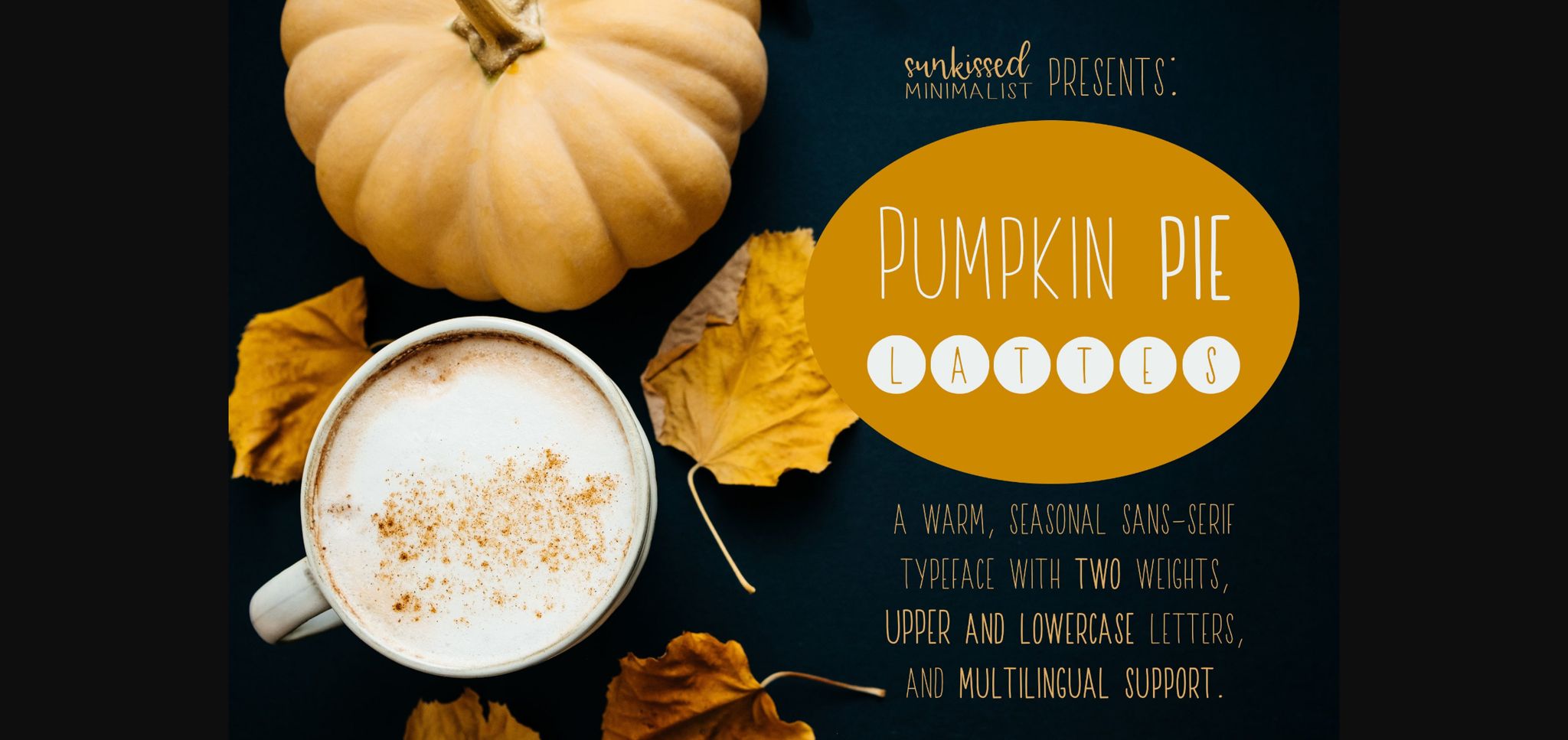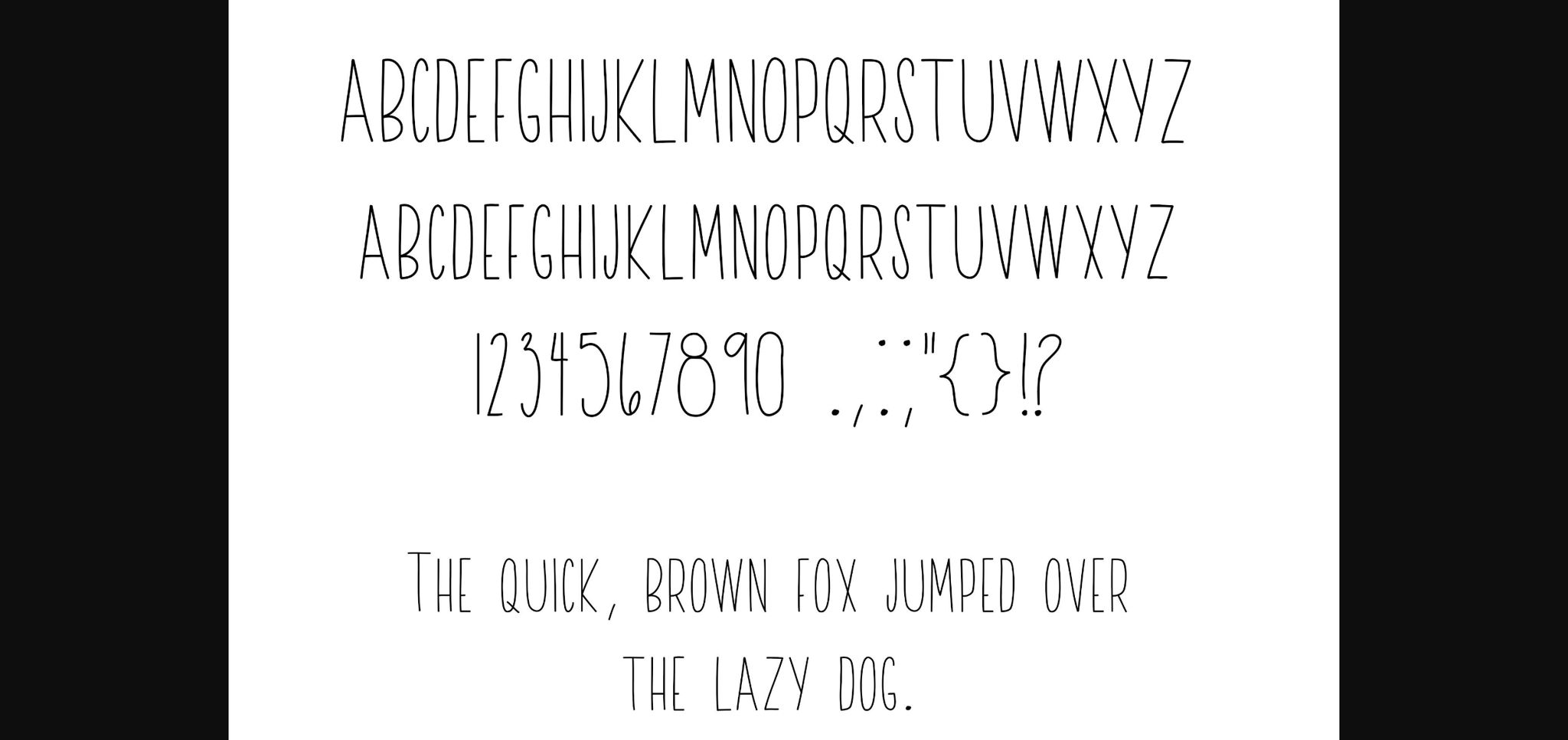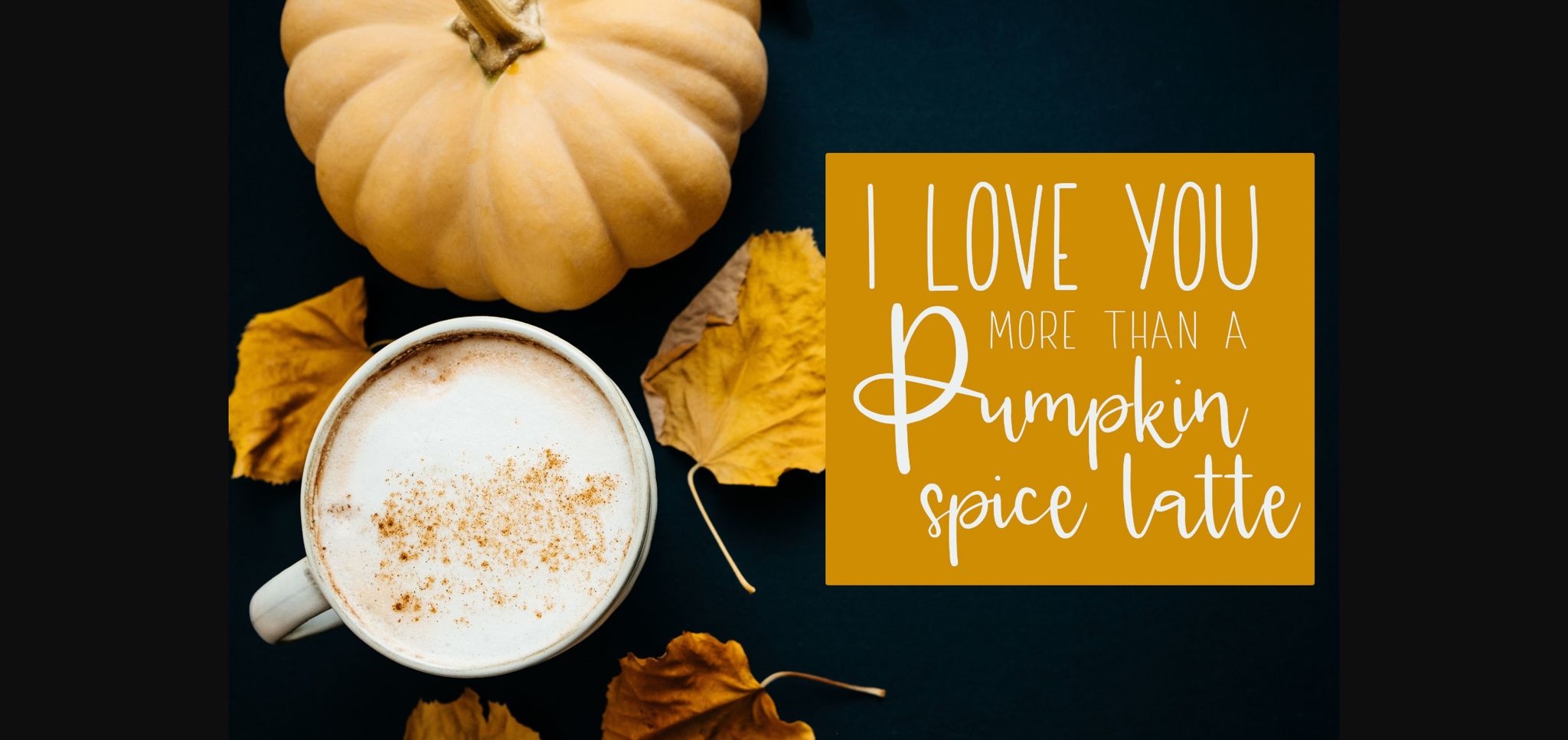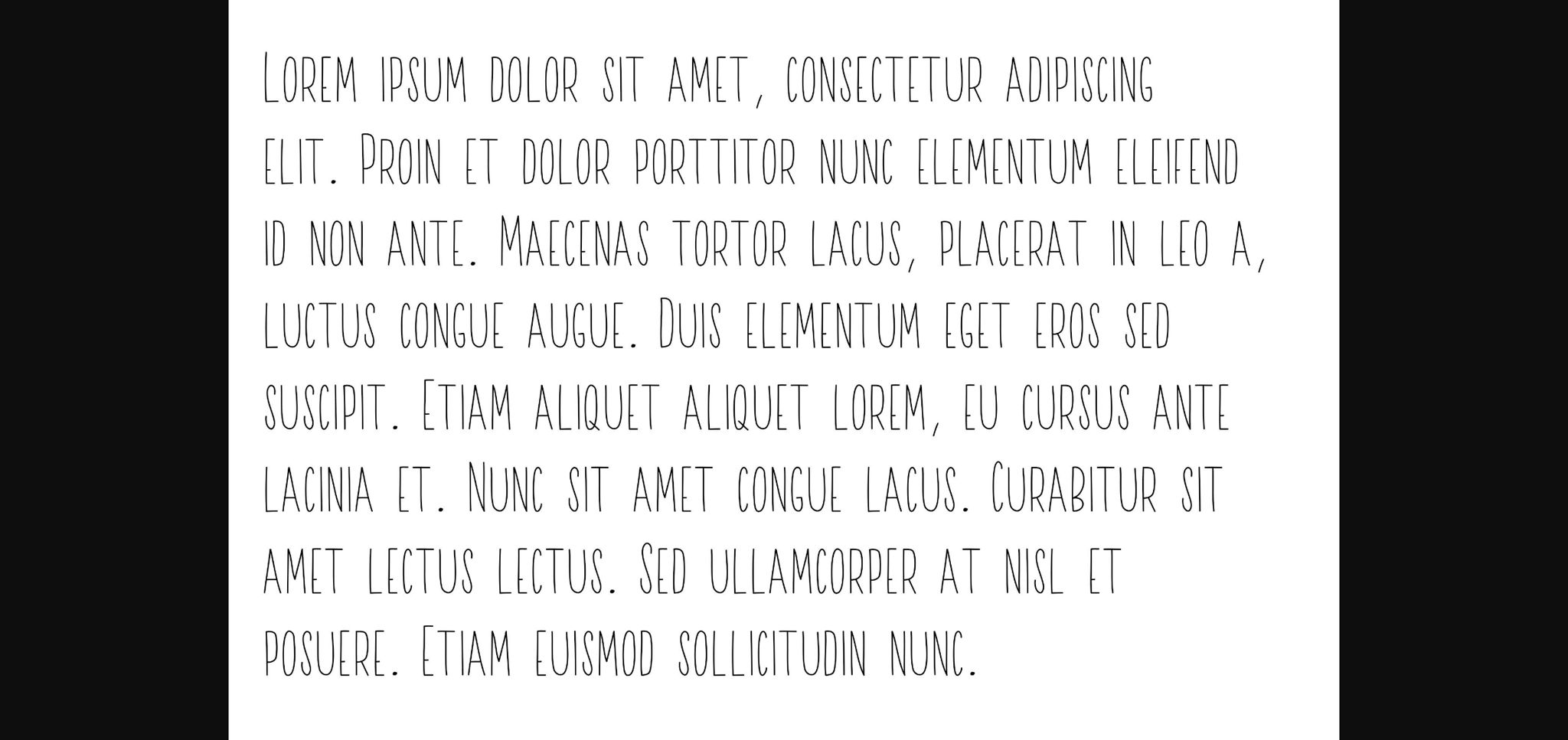
HomeSans Serif FontsPumpkin Pie Lattes Font Sans Serif Fonts Pumpkin Pie Lattes Font FacebookXPinterestWhatsApp 1 of 6 ... Pumpkin Pie Lattes Font Poster 2... Pumpkin Pie Lattes Font Poster 3... Pumpkin Pie Lattes Font Poster 4... Pumpkin Pie Lattes Font Poster 5... Pumpkin Pie Lattes Font Poster 6... About Pumpkin Pie Lattes Font Pumpkin Pie Lattes is a warm sans-serif font perfect for all your favorite projects. Its cozy and lovely vibe will add a unique accent to your crafty ideas. DOWNLOAD NOW People also explored Birdspring Font Lucky Boys Font Start Dreaming Font Davynci Font Dalton White Font Nueve Extra Light Font Convexion Cornero Font Atlantis 315 0 TagsPumpkin Pie Lattes Font Previous articleParma FontNext articleRanger Font LEAVE A REPLY Cancel reply Comment: Please enter your comment! Name:* Please enter your name here Email:* You have entered an incorrect email address! Please enter your email address here Website: Save my name, email, and website in this browser for the next time I comment. Personal Use Free Ancient Script Personal Use Free Read more about this font Whoa Personal Use Free Read more about this font Baby Love Personal Use Free Read more about this font Hello Sarrah Personal Use Free Read more about this font BLOG Using Fonts in Digital Marketing: Tips to Strengthen Your Brand Identity In the realm of digital marketing, every visual element plays a crucial role in shaping a brand's identity, and fonts are no exception. The... Free vs Paid Fonts: Why Investing in Premium Fonts Is Worth It Elegant Wedding Invitation Fonts – Handwritten & Script Fonts Top 7 Google Fonts Alternatives for Faster and Privacy-Friendly Web Design (2025)